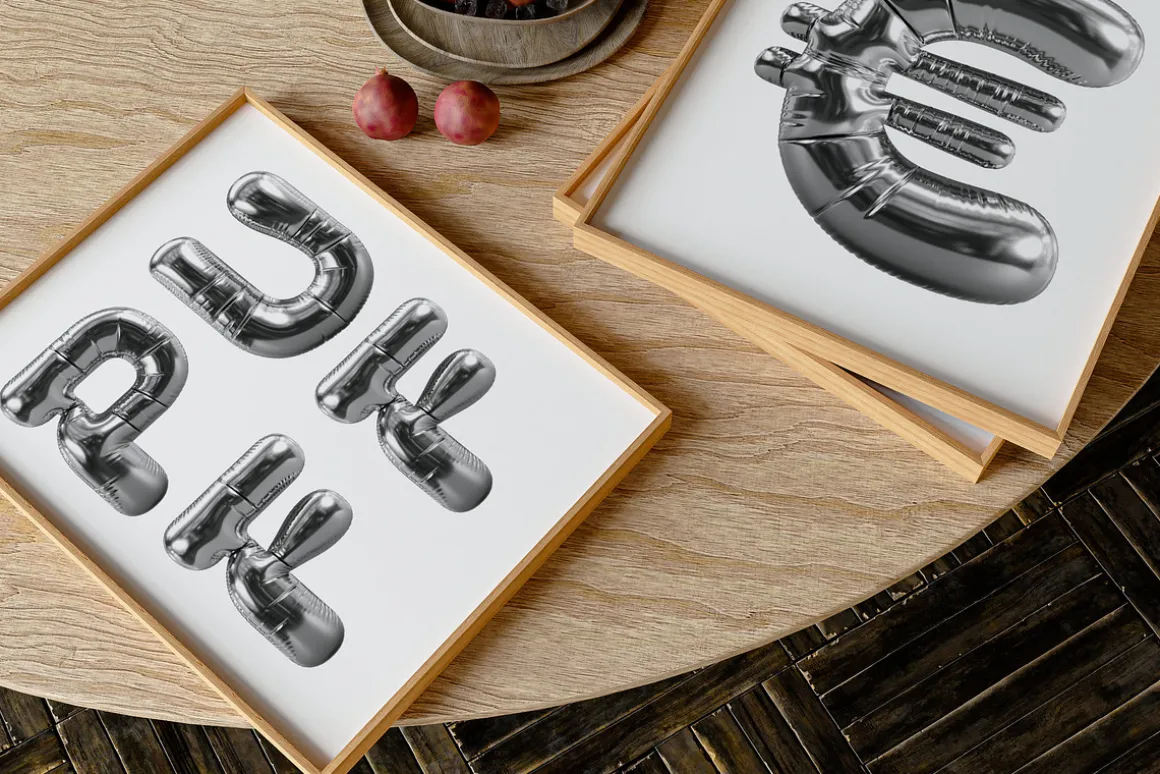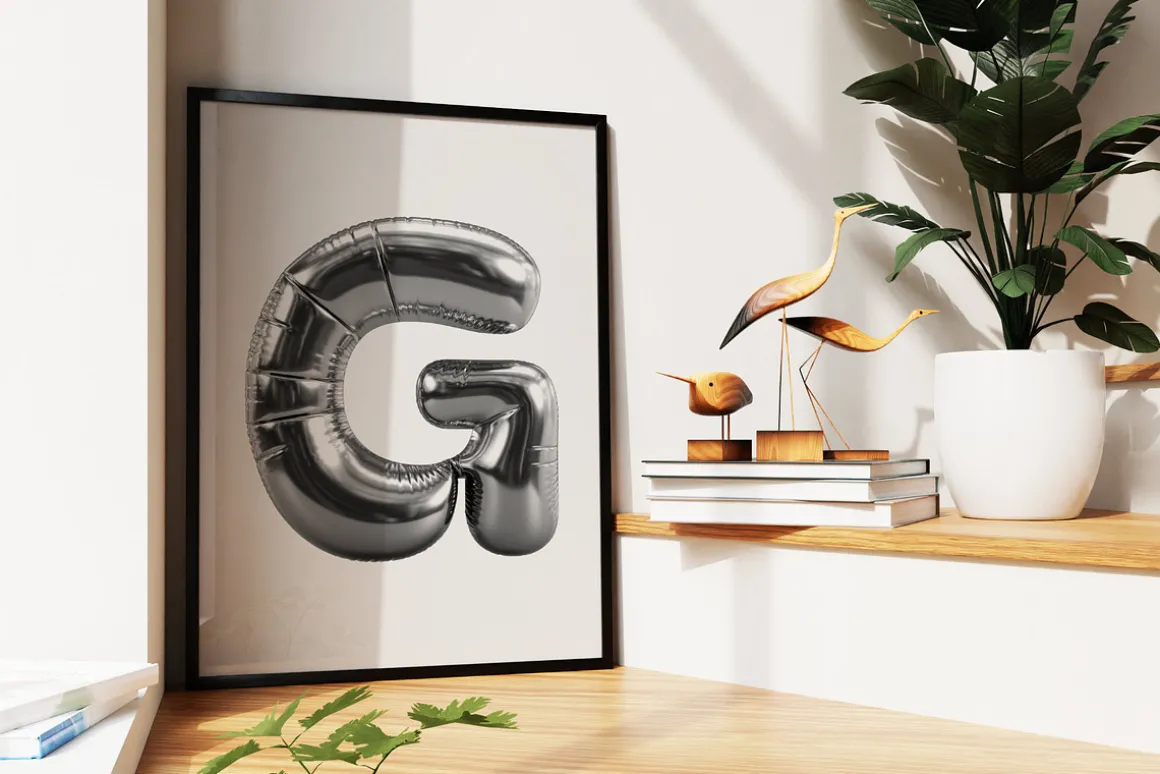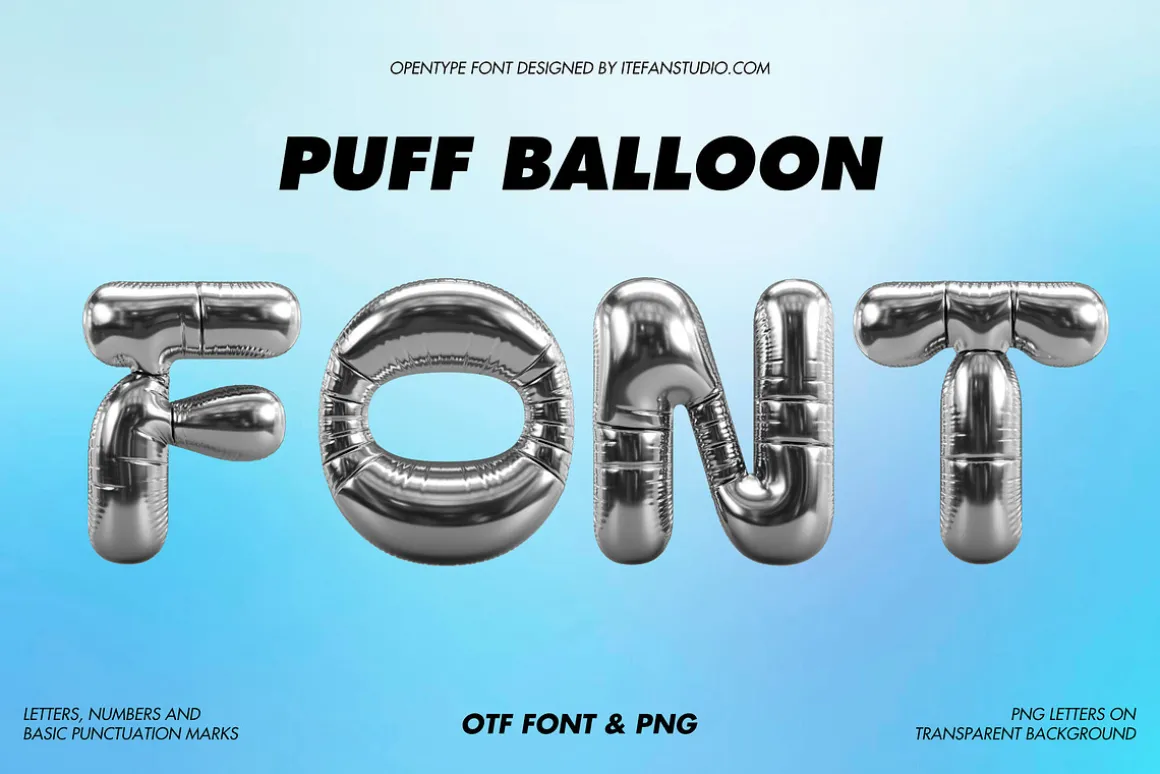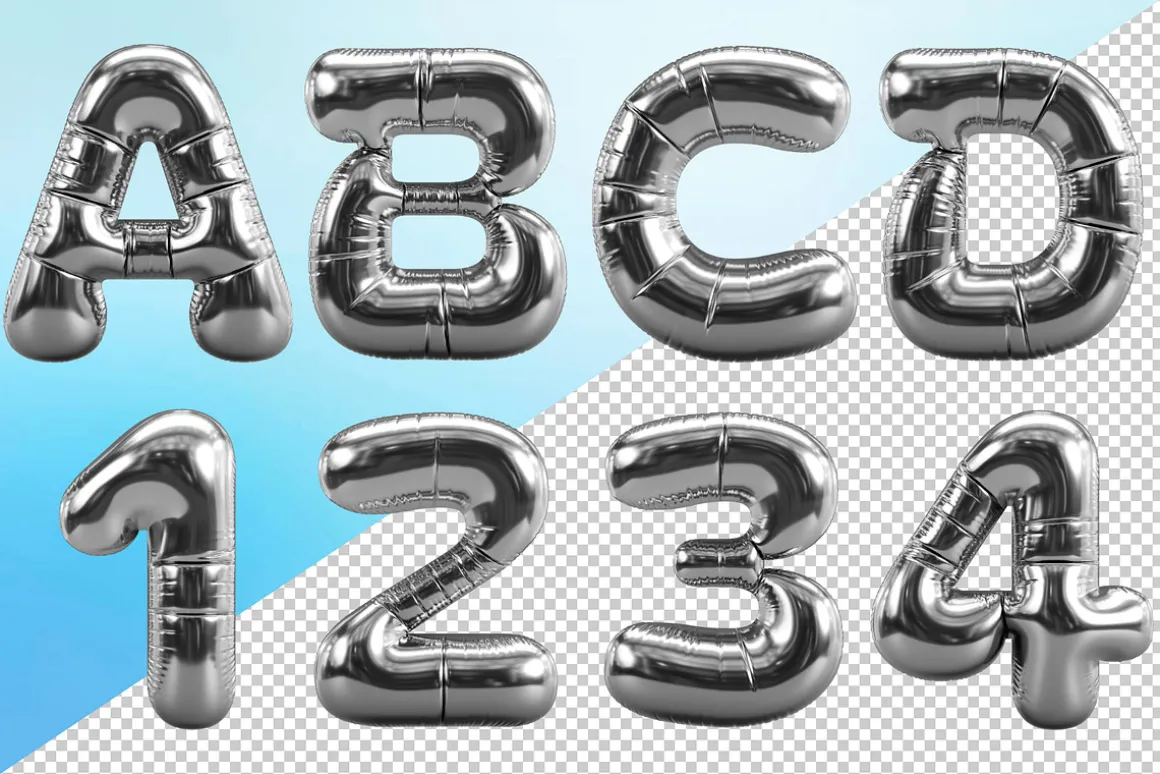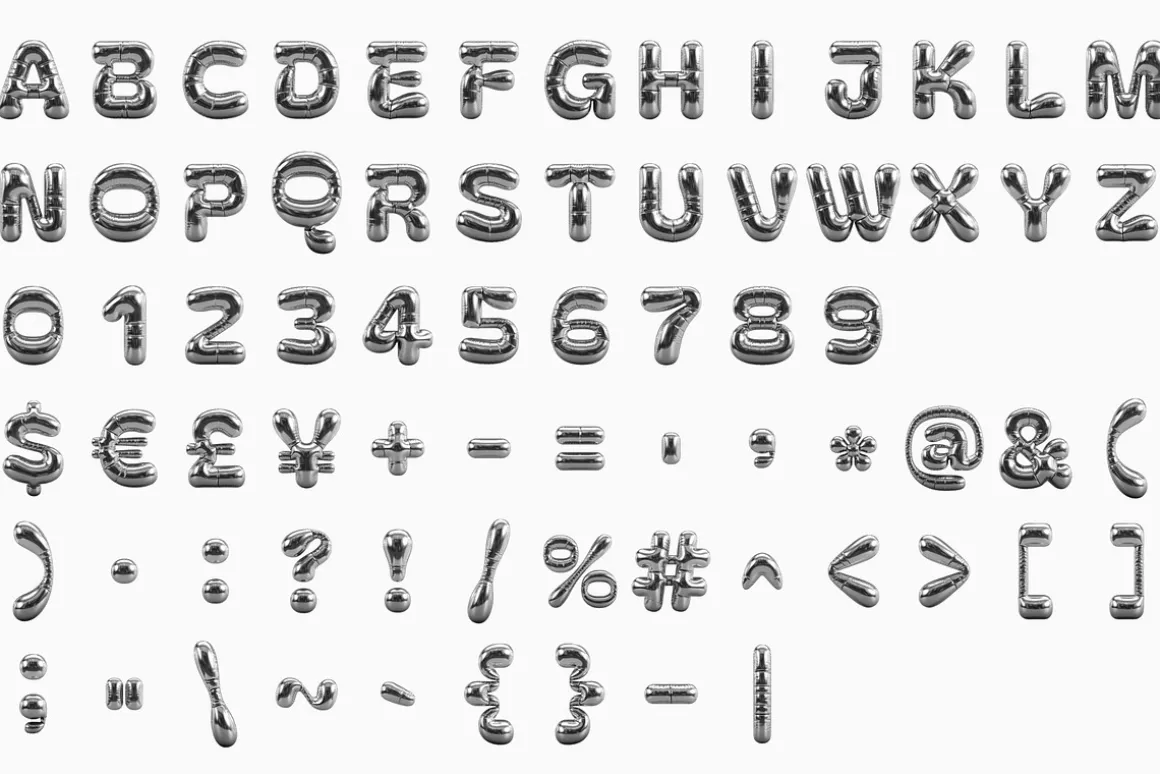
Puff Balloon, a playful and eye-catching OpenType font. Inspired by shiny, inflatable balloons, this font features bold, rounded letters, numbers, and basic punctuation marks with a glossy, metallic finish. Available in both OTF and PNG formats with transparent backgrounds, Puff Balloon is perfect for adding a festive, whimsical touch to party invitations, banners, posters, and more. Elevate your designs with this unique, celebratory typeface!
- Letters : A B C D E F G H I J K L M N O P Q R S T U V W X Y Z
- Numbers : 0 1 2 3 4 5 6 7 8 9
- Others : $ € £ Â¥ + – = ‘ , * @ & ( ) . : ? ! / % # ^ [ ] ; ” ~ ` { } _
The Puff Balloon Font is a high-resolution OpenType typeface featuring uppercase letters, numbers, and basic punctuation, with each character approximately 800 pixels tall. A complete preview of all letters and glyphs is provided for reference.